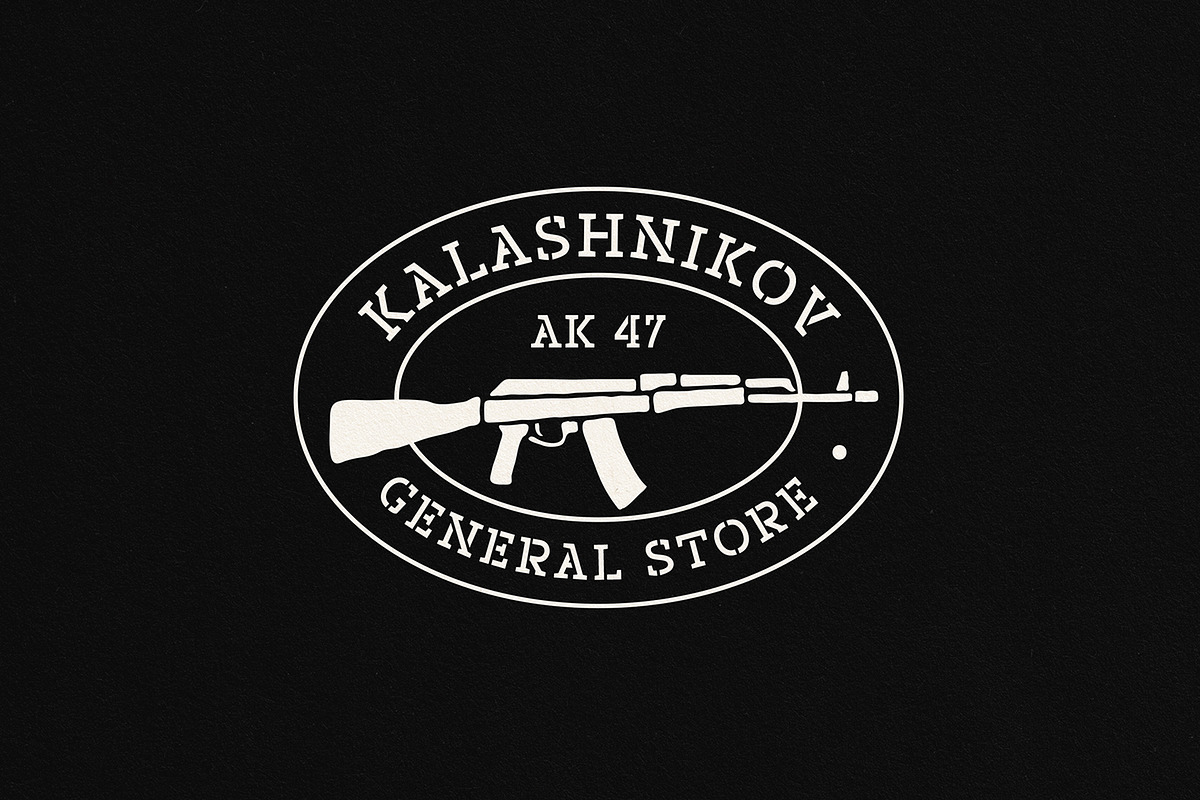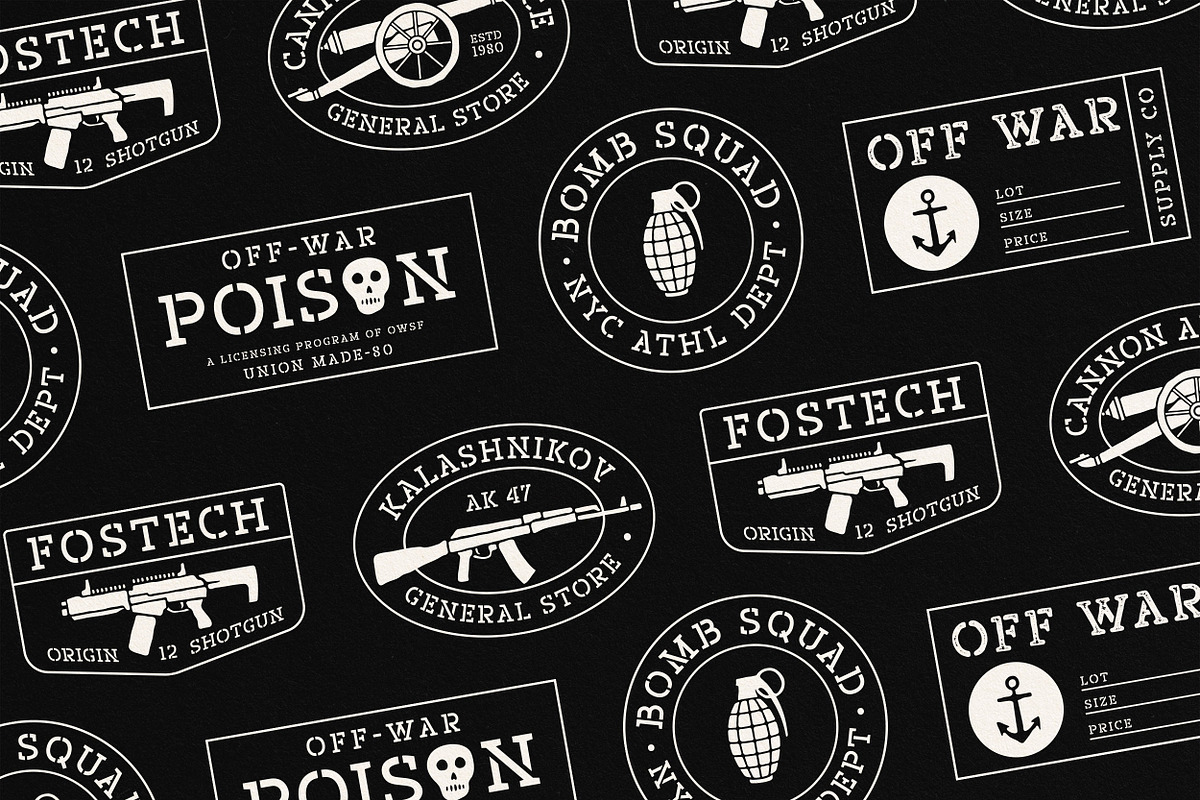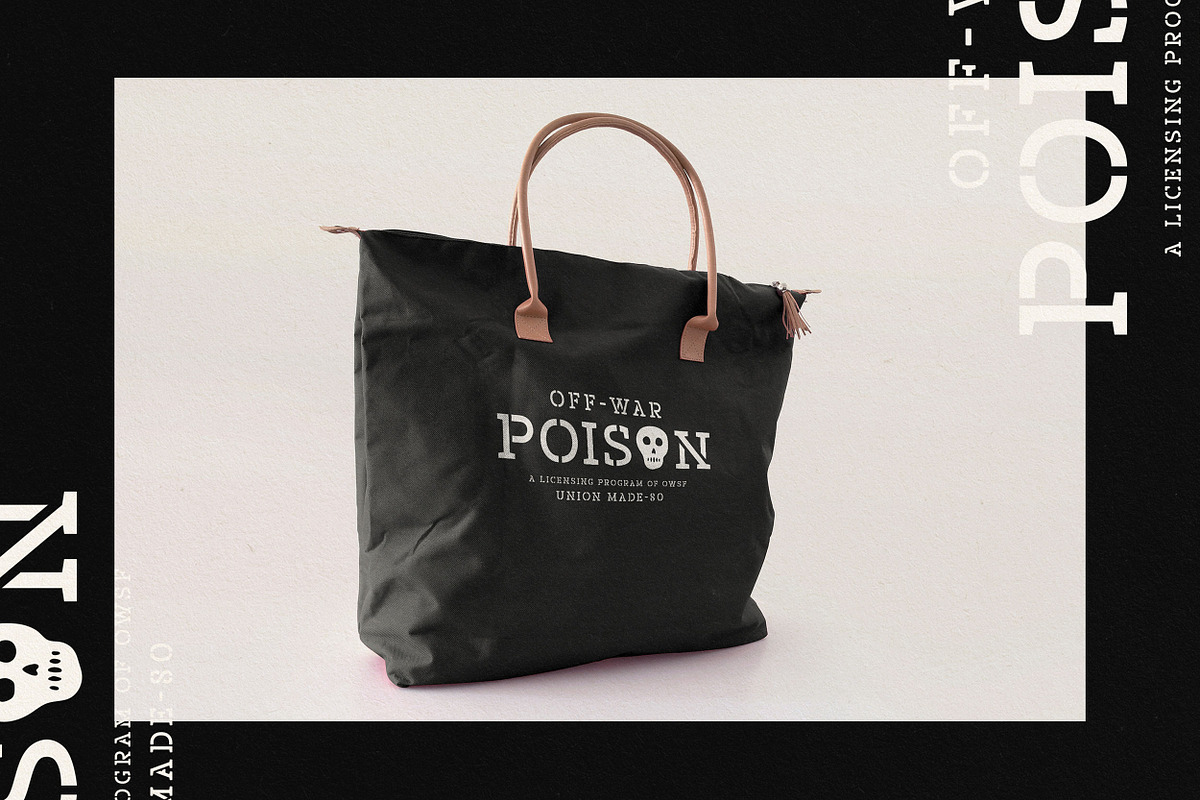
Off War - Stencil Font
Introducing Off War is a Slab Stencil font comes in 3 styles, Regular,Rounded and Stamp versions. This font is perfect for logos, badges, apparel, poster and more. You can create and exploring your creativity with this font. Free editable badges/label templete + military patterns & icons.
Number, Currency Symbols & Standard Punctuations
Multilingual Support: ÀÁÂÃÄÅÇÐÈÉÊËÌÍÎÏÑØÒÓÔÕÖÙÜÚÛÝŸÆŒßÞþ
- Off War Regular
- Off War Rounded
- Off War Stamp